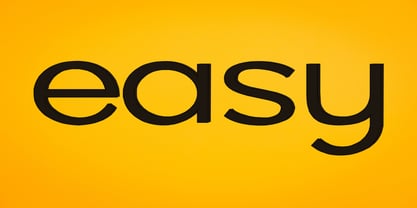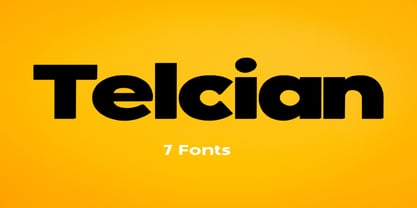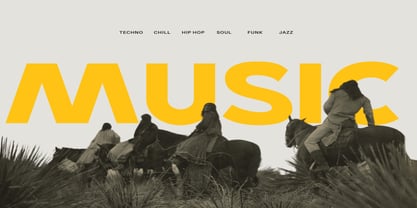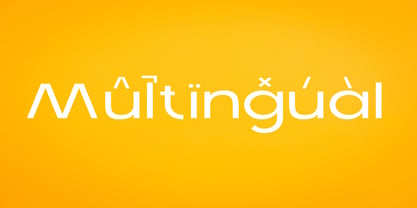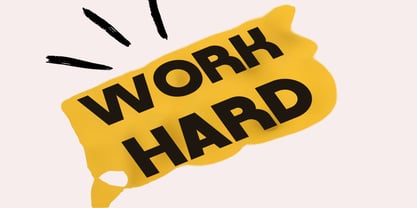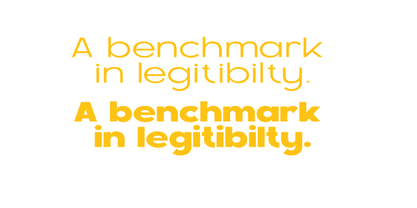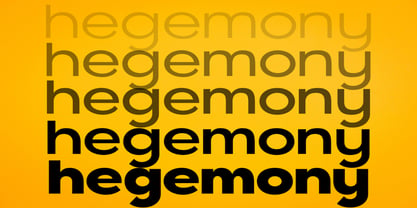
Telcian
The Telcian Font Family was designed by Karen Ackoff and published by Dream Font. Telcian contains 7 styles and family package options. More about this family
Telcian is a sans serif family that comes in 7 weights. This is a universal font that can be used for both headings and paragraphs, thanks to the customized kerning for bold and thin style. In the thin style, the kerning is more sparse, in the bold style it is more dense. This allows you to immediately use a bold style in large headlines and posters, and a thin style in small texts and paragraphs. This is very convenient and you don't need to think about setting up kerning. Supported Languages: Western Europe, Central/Eastern Europe, Baltic, Turkish, Romanian, Cyrillic